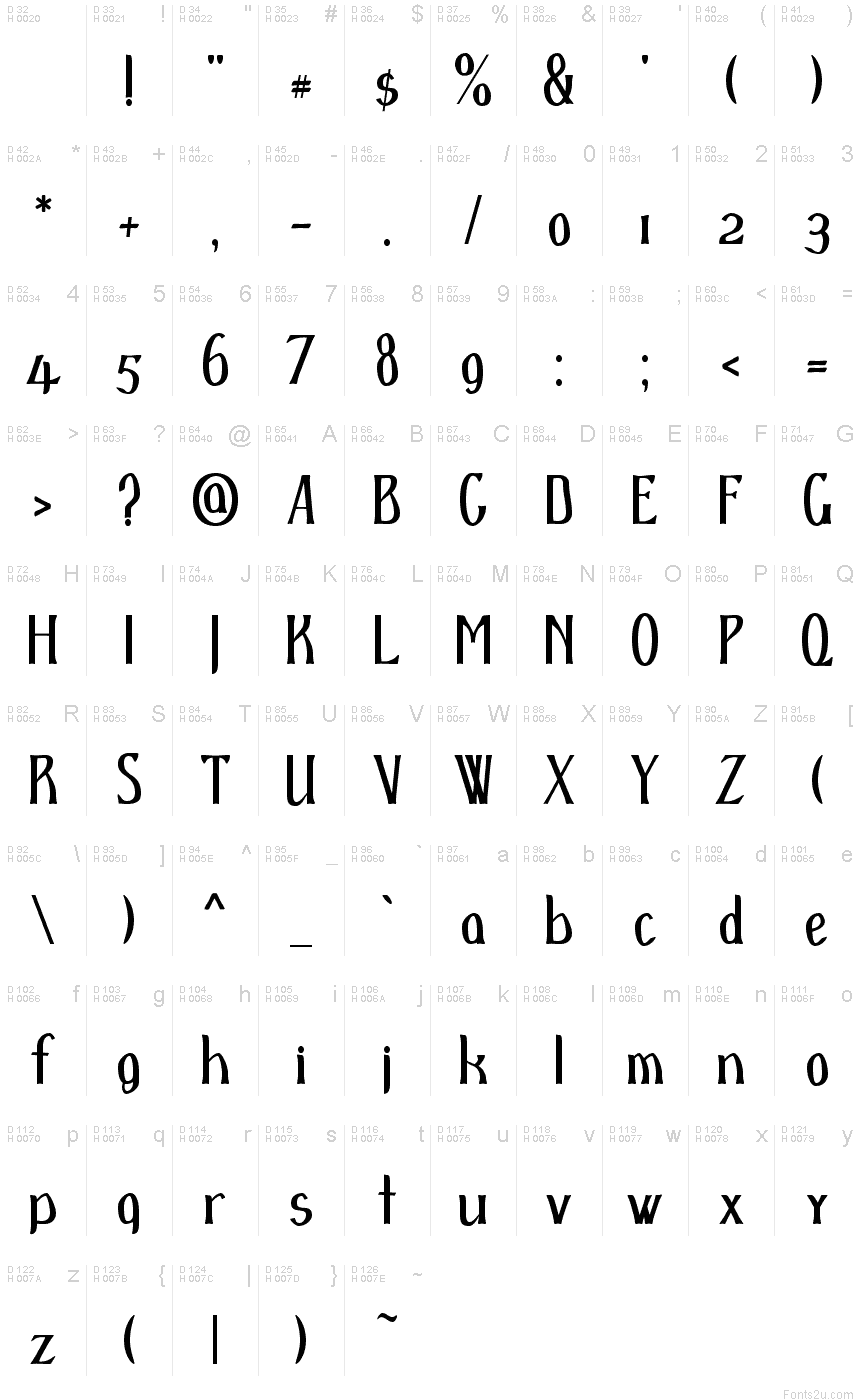
d'Spenser
d'Spenser font is a free retro distorted display typeface with a loose, hand-drawn energy. Its tall, wavy letters feel like they’ve been brushed in ink and left to wobble slightly, giving every word a playful, off-kilter charm. Soft curves and gently uneven strokes keep it friendly rather than chaotic, so your titles look quirky and expressive without becoming hard to read.
Using d'Spenser, you can bring character to posters, zines, book covers, indie brand logos, packaging, social media graphics, and event flyers that need a nostalgic twist. This free font shines at larger sizes, where its irregular rhythm and organic forms really show. Pair it with a clean, simple sans-serif for body copy to let d'Spenser handle the personality while the supporting text stays readable and calm.